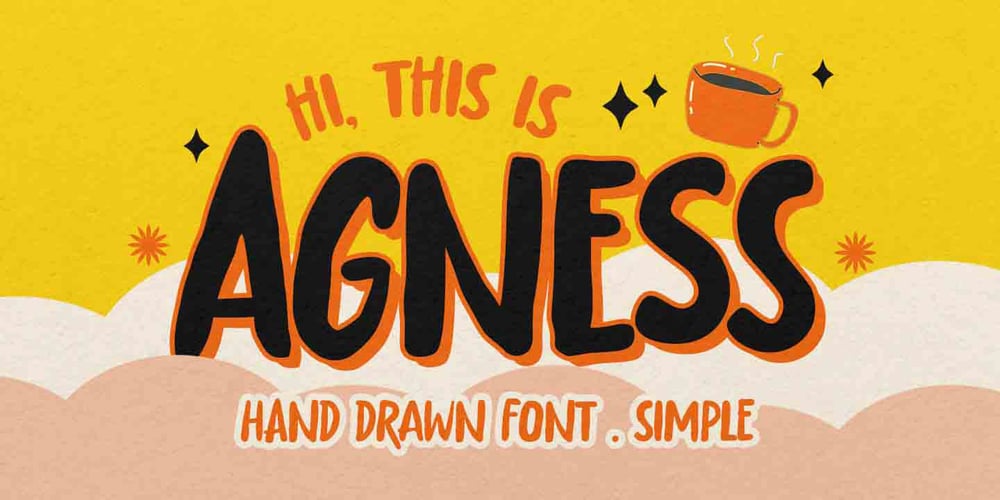
Agness
Agness font
Agness Font Family was designed by Abdul Malik Wisnu, Anang Fibriyanto and published by Gassstype. Agness contains 1 styles and family package options. Hello Everyone, introduce our new product Font AGNESS This Is Hand Drawn Font Simple.This is a Textured Natural Style and classy style with a clear style and dramatic movement.This font AGNESS is great for your next creative project such as logos, printed quotes, invitations, cards, product packaging, headers, Logotype, Letterhead, Poster, Design.You can activate 52 Alternate glyphs OpenType panel.